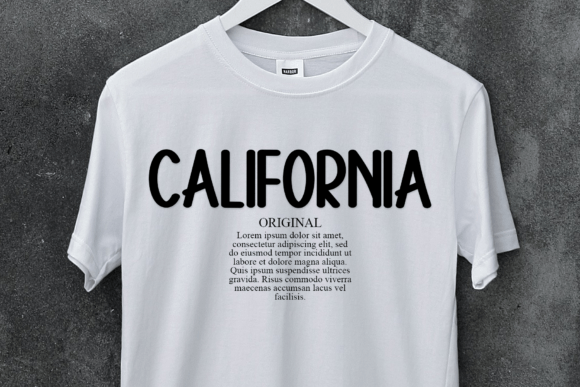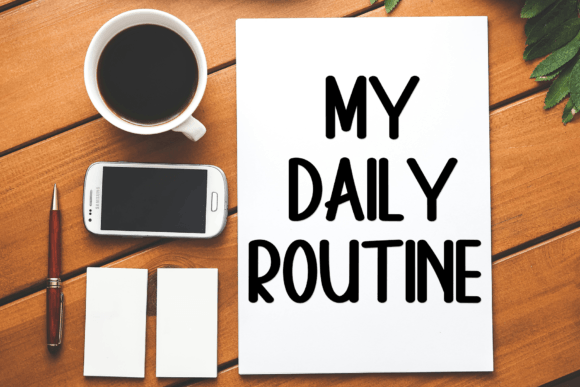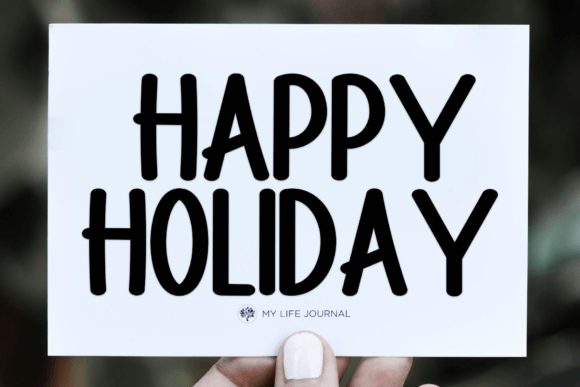
Introduction to Journal Handmade Font
Do you remember the thrill of holding a freshly sharpened pencil and filling the pages of your childhood journal with colorful doodles and stories? For many of us, those moments sparked a lifelong passion for creativity and self-expression. As designers, we’re always on the lookout for the perfect tools to bring our ideas to life, and that’s where the Journal Handmade Font comes in.
This beautiful, handwritten font is a treasure trove of design inspiration, perfect for creating eye-catching logos, branding, and quotes that add a touch of warmth and personality to any project. With its unique, handcrafted feel, Journal Handmade Font is a must-have for any designer looking to add a little extra magic to their work.
Whether you’re working on a personal creative project or need a reliable design resource, Journal Handmade Font is a valuable addition to your toolkit. Plus, with its transparent background and high-quality design, you can rest assured that your projects will look stunning – every time.
Key Features of Journal Handmade Font
- Unique, Hand-Drawn Design: Journal Handmade Font is a creative design resource that offers a distinctive, hand-drawn aesthetic perfect for adding a personal touch to any project.
- Perfect for Creative Projects: Journal Handmade Font is ideal for designers and artists working on creative projects, such as invitations, posters, and other design materials.
Honest Review: Journal Handmade Font
I recently came across the Journal Handmade Font and I must say it’s a wonderful addition to my design resources. I love how it adds a touch of warmth and personality to any creative project. ✨
Here are some of the things that work well with this font:
- Unique and handwritten feel that adds a personal touch to any design
- Perfect for creating a warm and inviting atmosphere in your designs
- May not be suitable for formal or professional designs due to its casual feel
- Limited language support, which may be a concern for designers who work with non-English texts
Overall, I’m quite impressed with the Journal Handmade Font. It’s a great resource for designers who want to add a personal touch to their creative projects. With its unique feel and high quality, it’s definitely worth checking out.
To get the most out of Journal Handmade Font, use it in combination with other design elements to create a unique and eye-catching visual effect. Experiment with different font sizes, colors, and arrangements to find the perfect balance for your creative project.
Journal Handmade Font is ideal for use in creative projects such as invitation designs, social media graphics, and blog headers. Its high-quality, transparent background makes it perfect for use on transparent backgrounds or overlays.